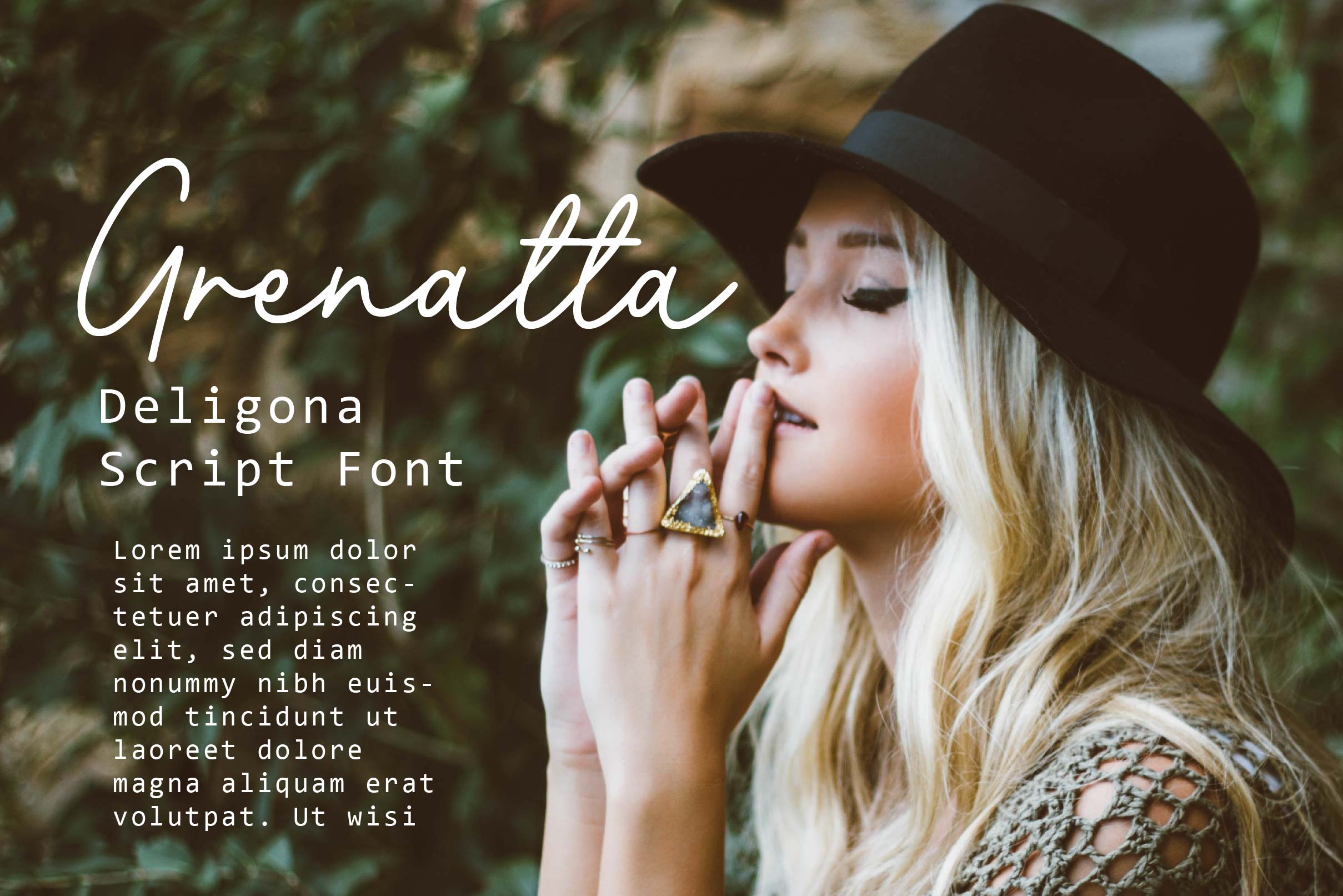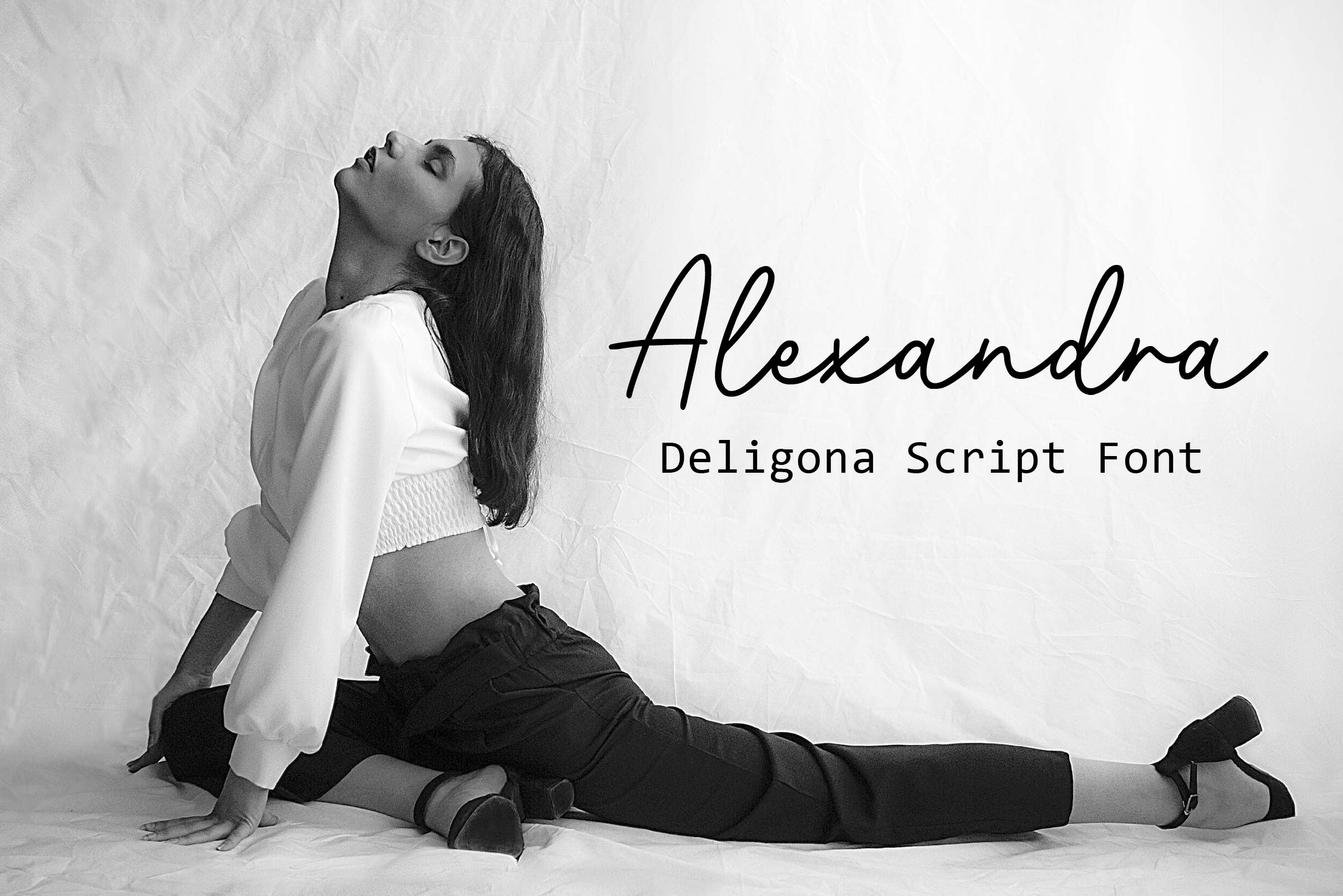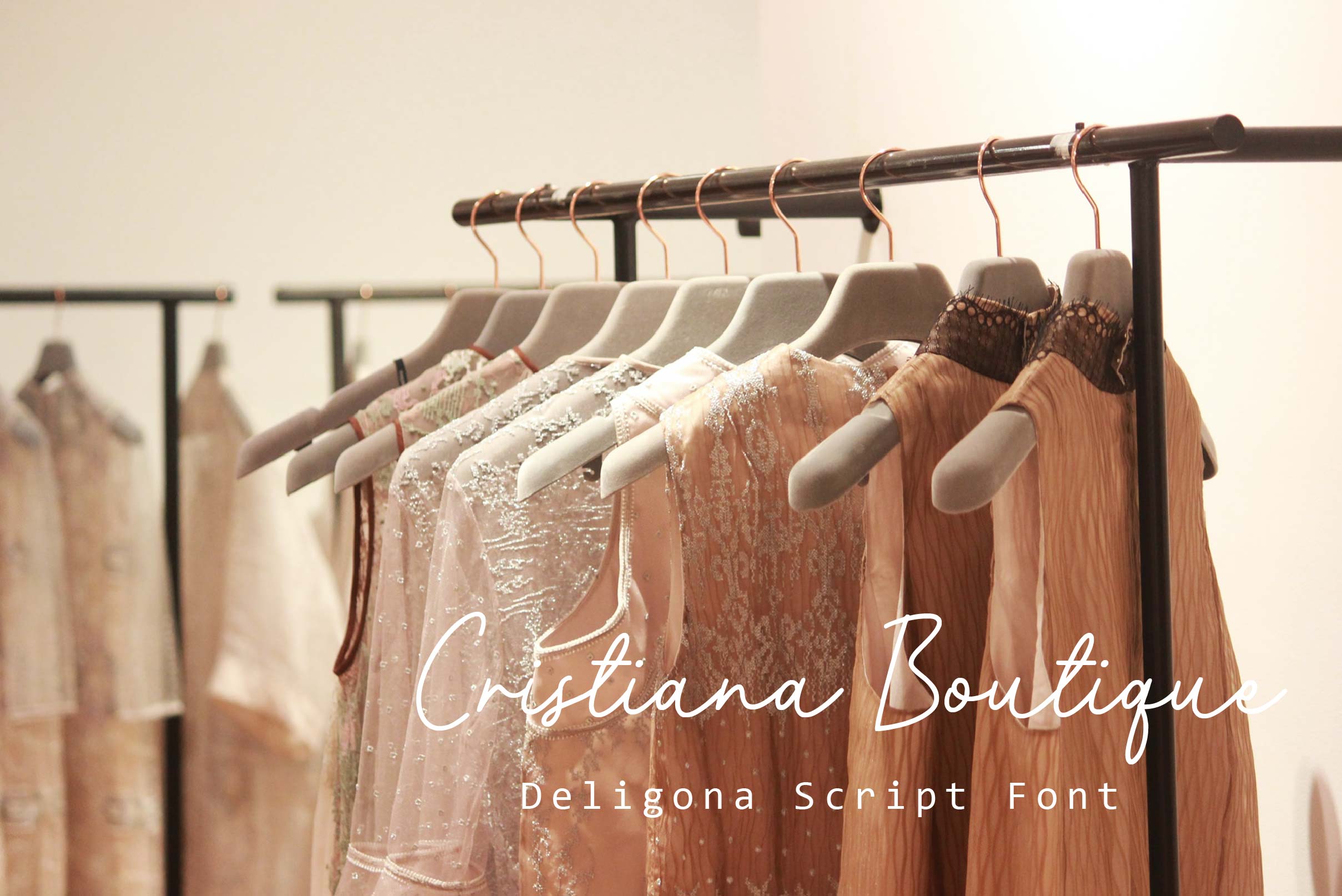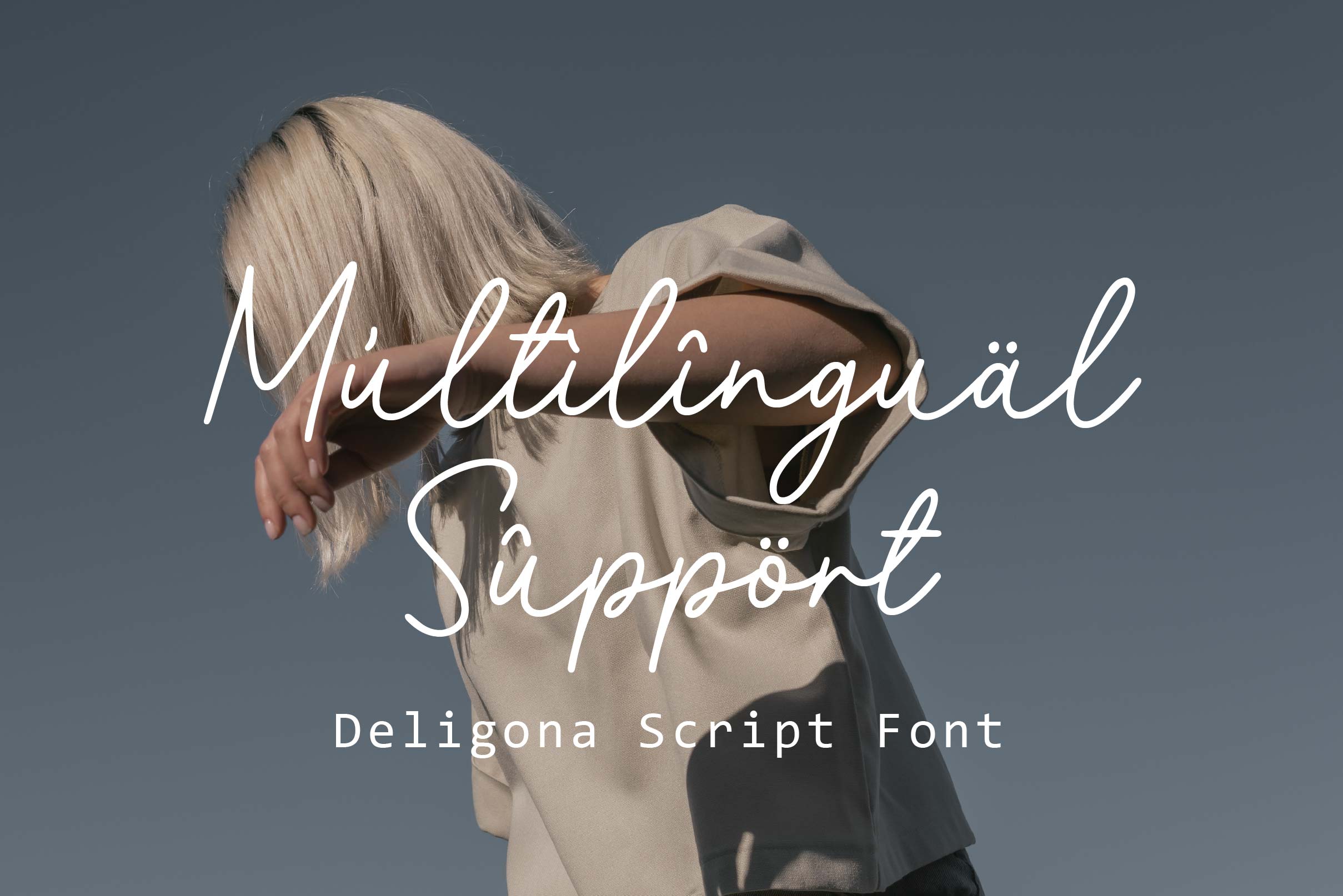
Deligona Font
Deligona Handwritten Font is an cute handwritten font with an authentic handcrafted feel. It is perfectly suited to signature, stationery, logo, typography quotes, magazine or book cover, website header, clothing, branding, packaging design and more.
– Uppercase, Lowercase, Numeral & Punctuation
– Alternate Letters, Ligature & Swash/Tail
– Multilingual & PUA Encoded